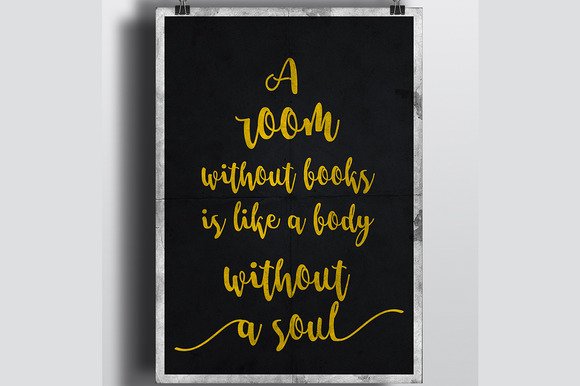
Salma Script Font
Salma Script Font designed by MissinkLab Studio, this is a premium font, are sold on creativemarket, but it was great, it is free today for download. Salma script a new fresh & modern script with a handmade calligraphy style. Very good to simulate printing, so it feel same as natural hand writting look like. Suitable for digital lettering, logo font, band logo, t-shirt, print, quotes, branding materials, poster and applicable for any graphic desig